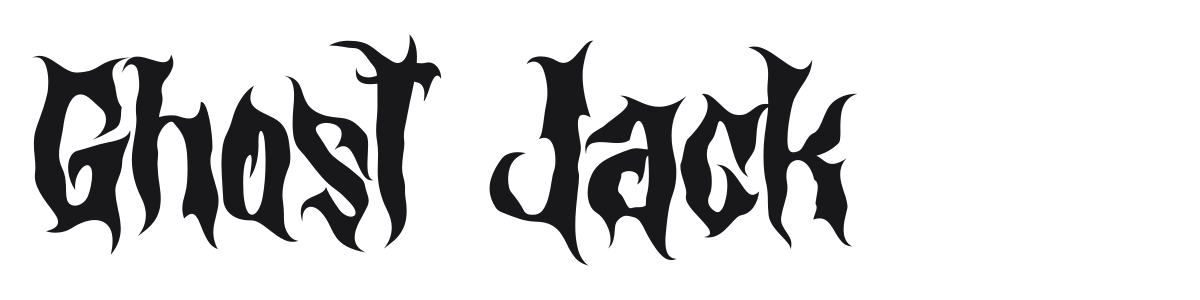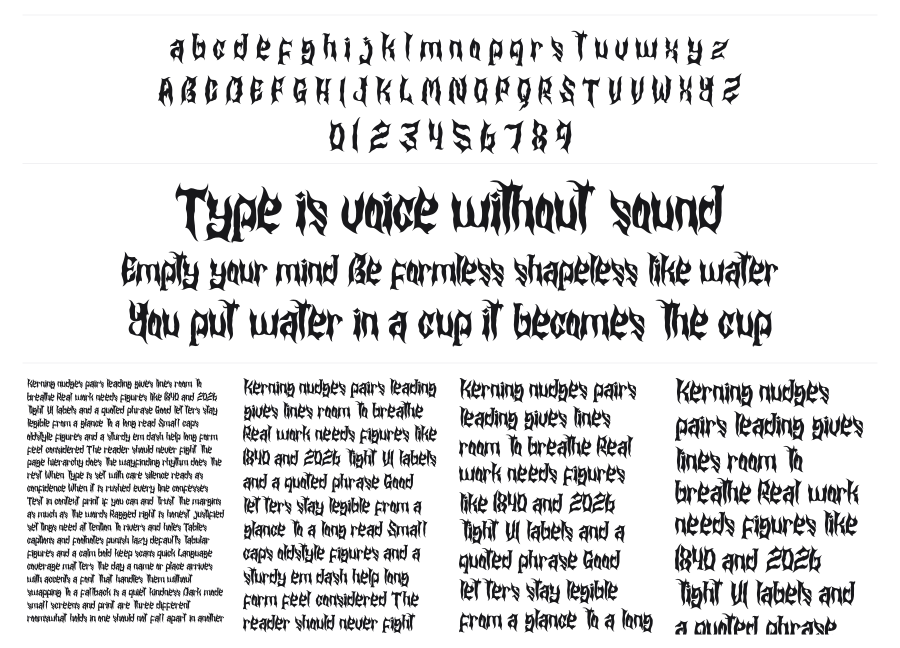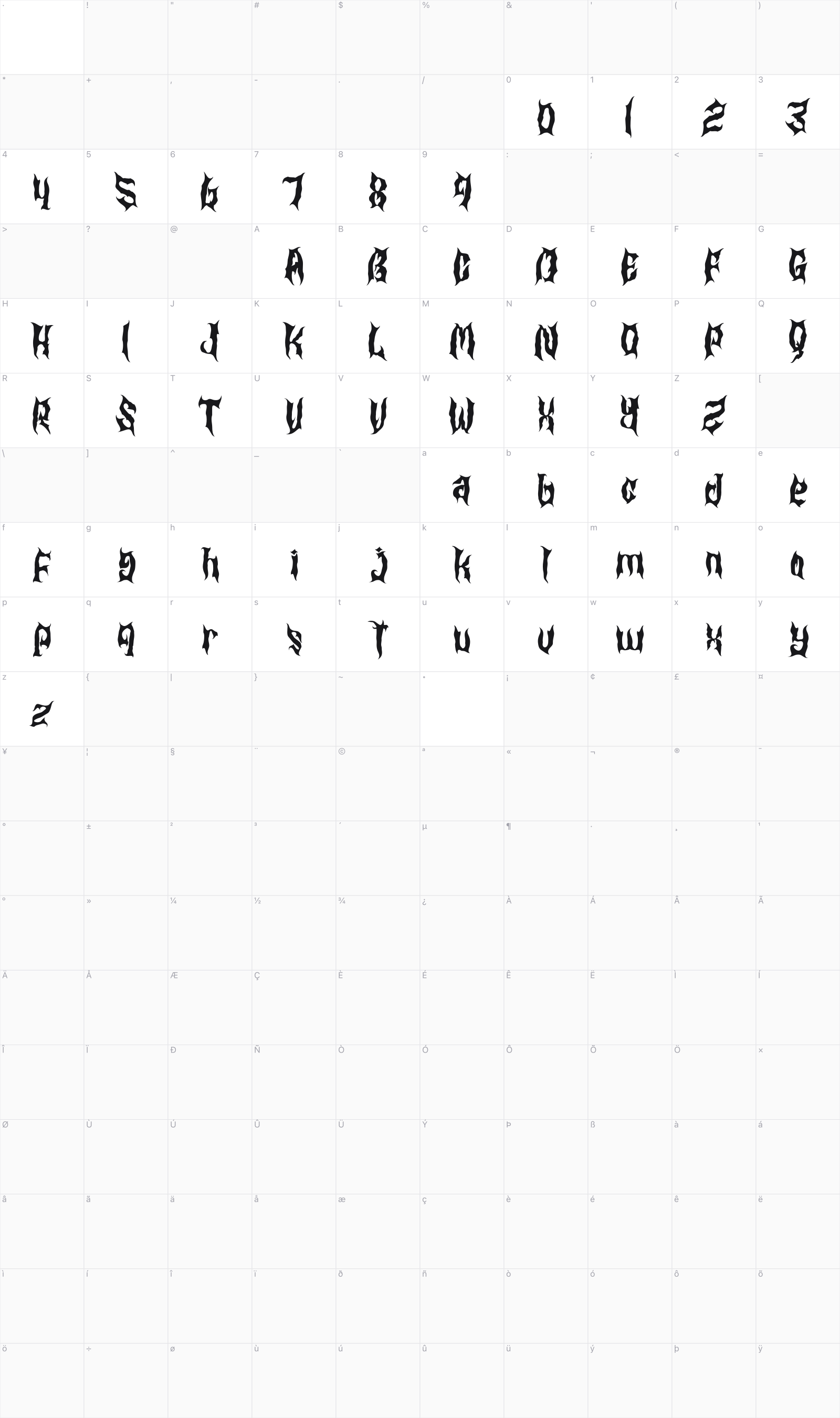
Ghost Jack
Ghost Jack is a bold horror display font with jagged, claw-like edges drawn from blackletter tradition. Each character features sharp pointed terminals and organic distortions that give it a sinister, supernatural energy. Strong at large sizes for posters, album covers, or anything that needs genuine menace.